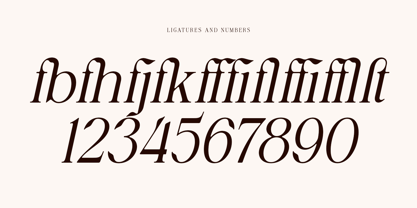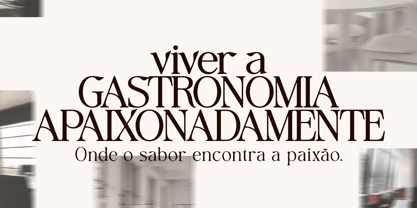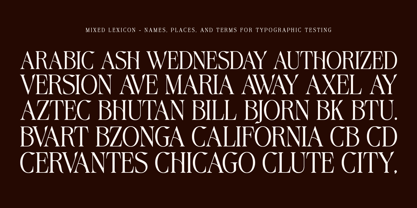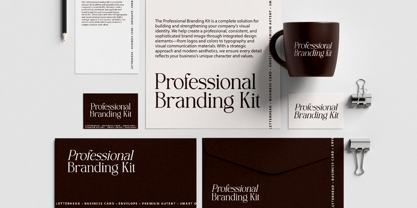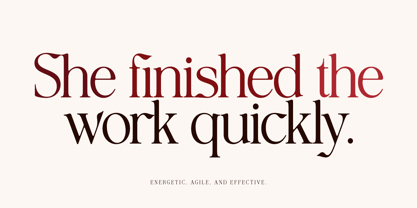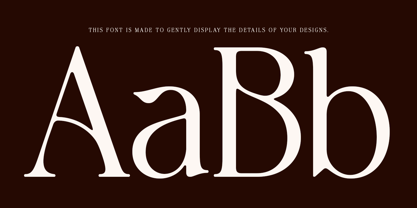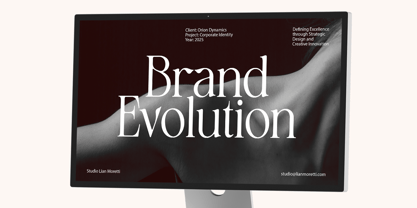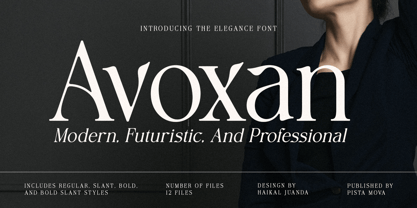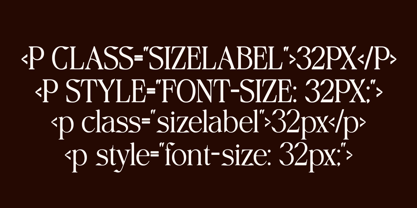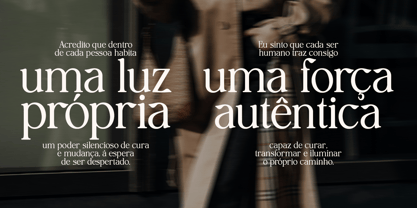
Avoxan
by Pista Mova
The Avoxan Font Family was designed by Haikal Juanda and published by Pista Mova. Avoxan contains 12 styles and family package options.
Introducing Avoxan: A Typeface for Timeless Elegance Step into a world of refined beauty with Avoxan, a typeface that embodies the perfect balance between classic sophistication, modern sensibility, and subtle softness. Every curve and contour of Avoxan is carefully crafted to convey grace, confidence, and a gentle touch of elegance. Its high-contrast strokes and smooth transitions form a captivating visual harmony that enhances any design with quiet refinement. Whether you’re crafting an editorial masterpiece, shaping a memorable brand identity, or designing a captivating website, Avoxan brings both sophistication and softness to every project. Each character reflects precision and artistry — from its finely sculpted serifs to its harmonious proportions — celebrating the timeless beauty of typography with a contemporary and tender expression. The true Slant introduce fluid motion and graceful rhythm, offering designs that feel both elegant and effortlessly human. Key Features: Effortless Elegance: Smooth curves, balanced proportions, and clean lines exude timeless charm and gentle refinement. Advanced OpenType Features: Enjoy complete typographic control with thoughtfully designed ligatures and alternate forms. Multilingual Support: Covering over 90 languages, Avoxan ensures your message resonates across global audiences. True Italics: More than a simple slant — Avoxan’s italics are individually designed for graceful, fluid visual flow. Perfect For: Editorial Design: Elegant yet soft, ideal for magazines, books, and refined layouts. Branding & Logos: Build a memorable identity with Avoxan’s balance of strength and softness. Web Design: Smooth readability and modern clarity for digital experiences. Packaging & Print: Add a delicate touch of class to your visual presentation. Invitations & Stationery: Perfect for projects that seek warmth, sophistication, and grace. Available in 12 carefully designed styles. Included Styles: Avoxan Regular Avoxan Condensed Avoxan Expanded Avoxan Slant Condensed Avoxan Slant Expanded Avoxan Bold Condensed Avoxan Bold Expanded Avoxan Slant Bold Condensed Avoxan Slant Bold Expanded Enter the world of Avoxan — where elegance meets softness and versatility. Experience the art of refined typography, and let every letter speak with quiet confidence. Download Avoxan today and bring a touch of gentle sophistication to your designs.